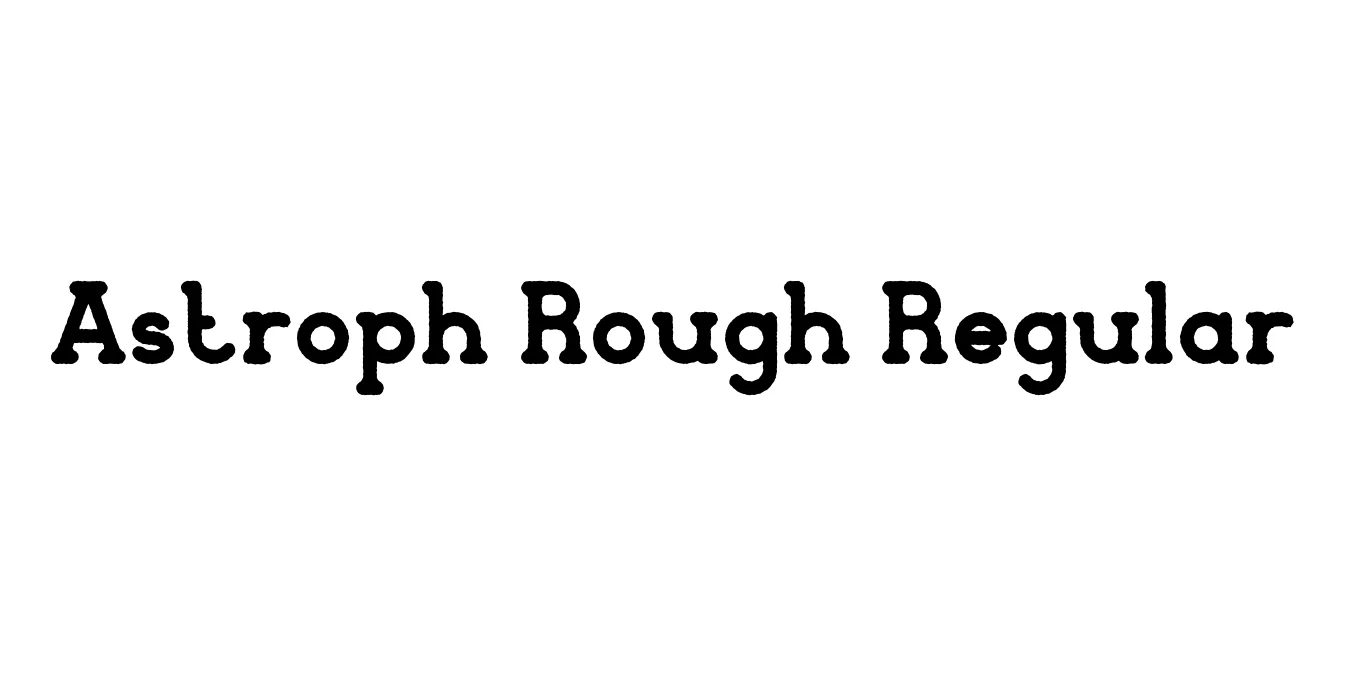
Astroph Rough Regular
Designed by Azetype Studio
| Category | Display / Vintage |
Astroph Rough Regular is a masterfully crafted display font designed to evoke the spirit of classic, hand-lettered vintage typography. Created by Azetype Studio, this typeface features a carefully distressed texture that replicates the natural imperfections of old-school letterpress printing. Its bold serifs and rugged outlines make it an excellent choice for projects that need to convey a sense of strength, history, and authenticity.
Beyond its aesthetic appeal, the font is engineered for maximum impact in large formats. It is frequently utilized in the craft beverage industry, specifically for brewery logos and artisanal packaging, as well as in outdoor-themed apparel. The "Rough" styling ensures that even the simplest text carries a rich, tactile narrative, making it a staple for designers looking for a high-quality retro appearance.
Astroph Rough Regular Best Uses
Crafting rugged, heritage-inspired brand identities and emblems.
Ideal for artisanal product labels such as craft beer or specialty coffee.
Perfect for vintage-themed t-shirt prints, hats, and garment tags.
Creating high-impact, bold headlines for music festivals or outdoor events.